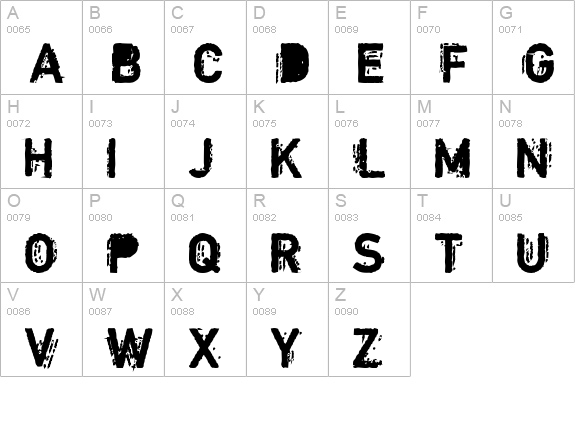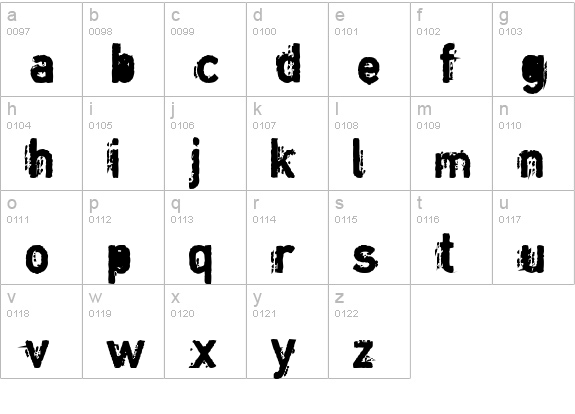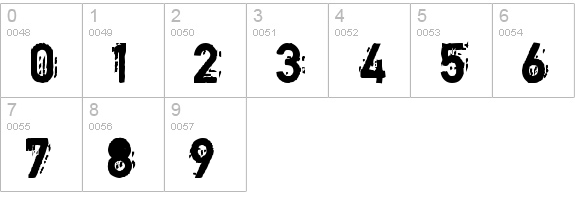
Copystruct Bold Font Details
Copystruct Bold is a strong, high-contrast variant in the Copystruct typeface family \xE2\x80\x94 well suited to headlines, attention-grabbing titles, and strong calls-to-action.
Copystruct Bold is a contemporary and eye-catching font that exudes confidence and style. With its bold and sharp lines, this font is perfect for making a statement in your designs. Whether you are creating posters, logos, or headlines, Copystruct Bold will definitely stand out and leave a lasting impression. The best part is that Copystruct Bold is available for free download at FontsMarket.com. You can easily enhance your projects with this versatile font without any cost. So why wait? Download Copystruct Bold today and add a touch of modernity to your designs.